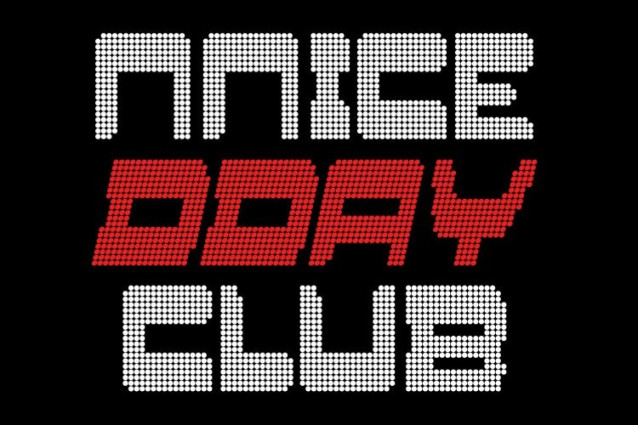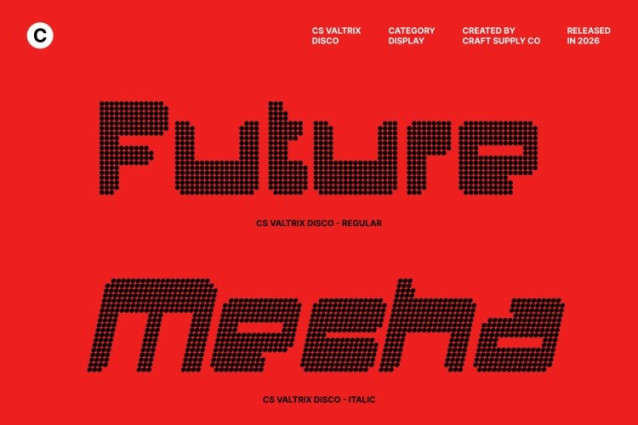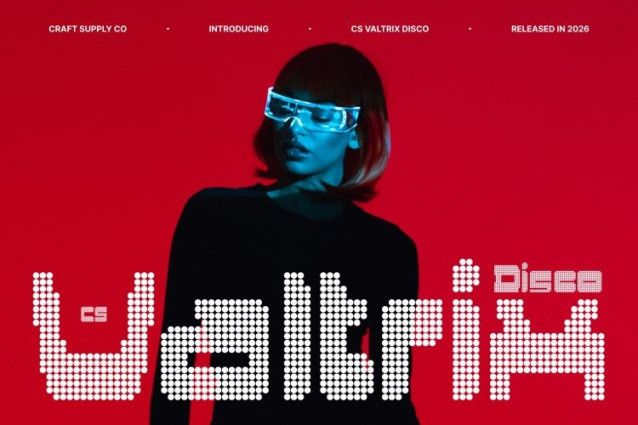
CS Valtrix Disco Font
CS Valtrix Disco – Y2K Display Font with Futuristic Energy
Retro-Future Style with Disco Dot Glow
This font transforms the Y2K aesthetic into a sparkling dotted display style inspired by dance-floor lights and party atmospheres. The bold futuristic forms remain strong and confident, now enhanced with shimmering dot details that create a vibrant, celebratory glow.
Bold Outlines with Sparkling Futuristic Personality
The thick outlines and sleek geometry keep the cyber-inspired attitude intact, while the disco dot texture adds movement and visual rhythm. Each letter feels illuminated and energetic, balancing retro nostalgia with a fun, modern party vibe.
Radiant Shine with Playful Digital Energy
Instead of smooth gradients, the dotted styling delivers a luminous, glitter-like effect that mimics light reflections and glowing pixels. This gives the font a cheerful, high-energy presence that feels nostalgic, optimistic, and perfect for eye-catching typography.